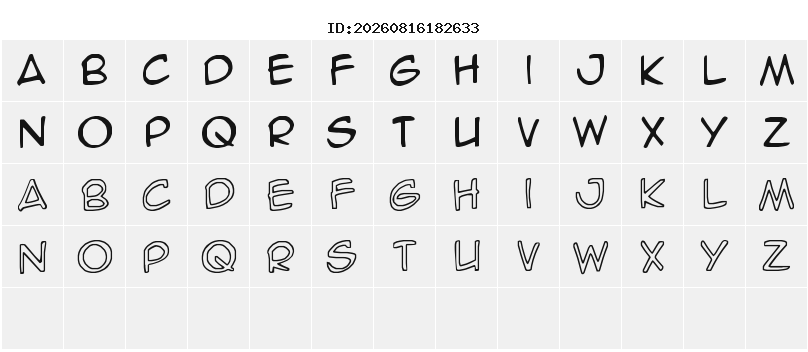
SpideRaY Preview
• Font Name: SpideRaY
• Font ID: SpideRaY: 2011
• Full Font Name: SpideRaY
• Version: Version 1.002
• PostScript Name: SpideRaY
• Character Count: 58
• Designer: SpideRaY
• Manufacturer: SpideRaY
About SpideRaY.ttf
SpideRaY.ttf is a modern, elegant sans-serif font designed for ultimate readability and visual harmony. Perfect for branding, headlines, web design, and print materials.